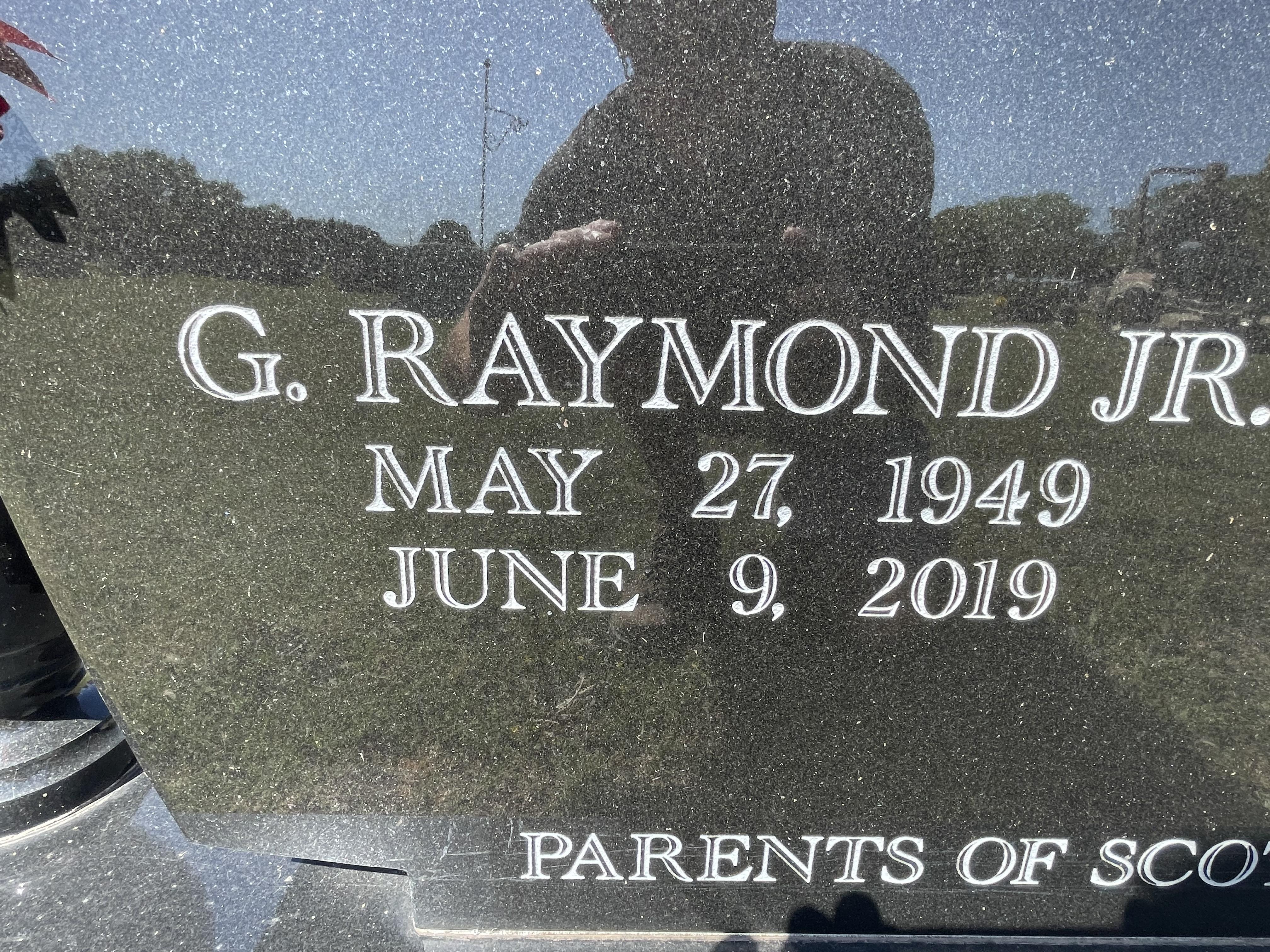
I found one version of this font but parts are much smaller than this. Anyone know where to find this one?
Hi Eric, this font is named Academy Engraved. It’s possible someone added a slight stroke to thicken it up a bit for better sandblasting.